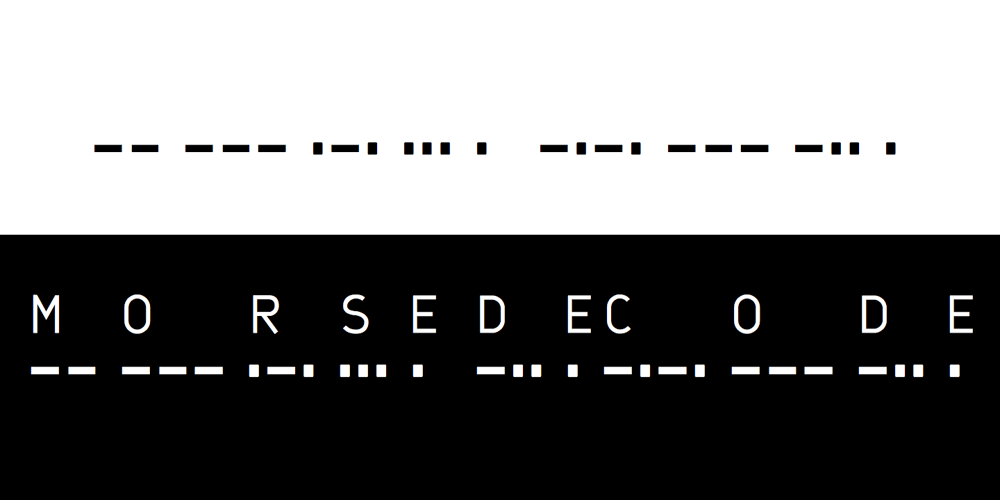
XIntnl Morse Code Font Family was designed by Robert Schenk and published by Ingrimayne Type. XIntnl Morse Code contains 2 styles and family package options. I designed a Morse-Code font in the mid 1990s, but when I decided to update it, I found enough problems with it to completely redo it. I hope I got all the mistakes out. There are two fonts in the package. One of them shows the letter key with the Morse Code equivalent.